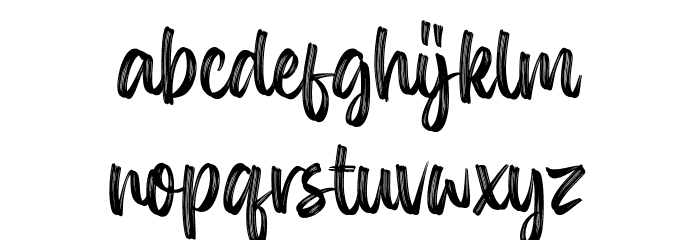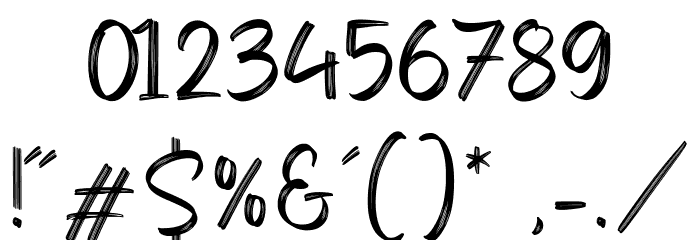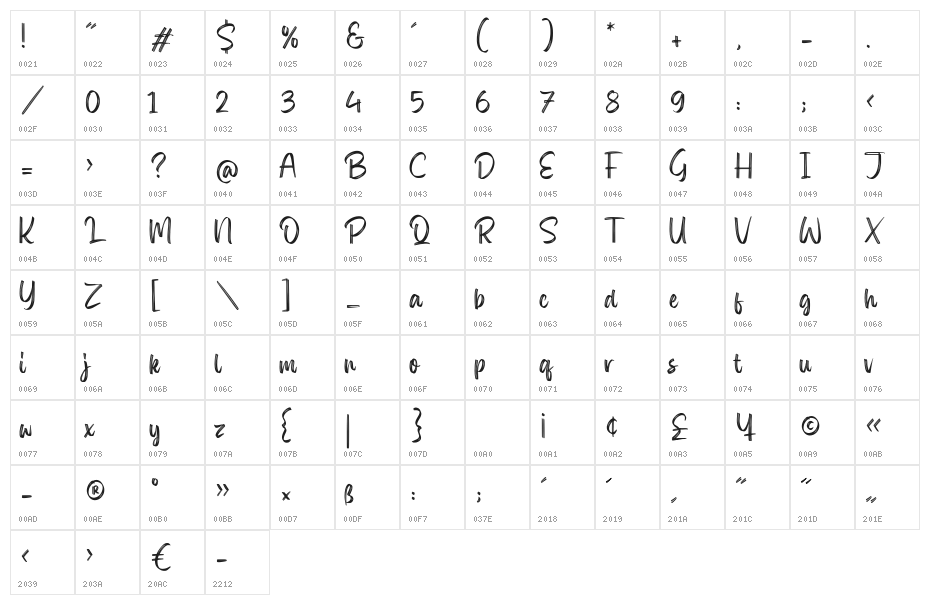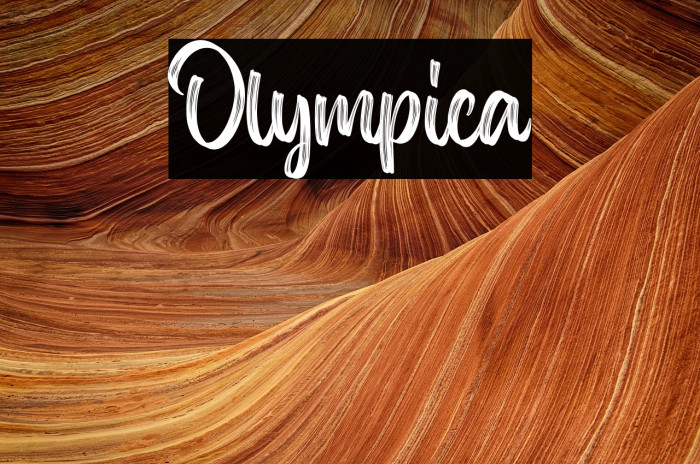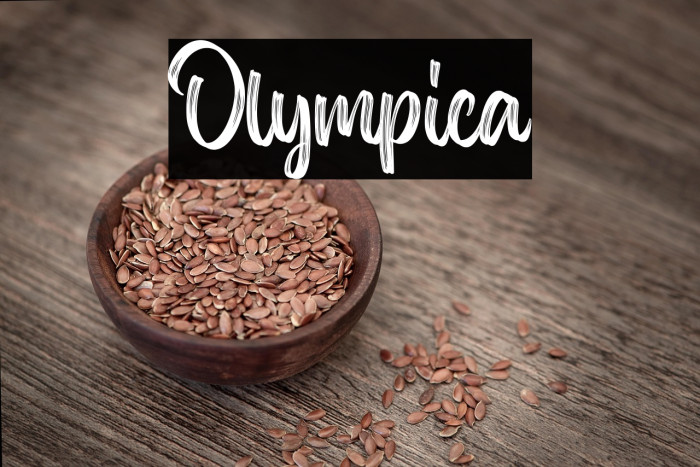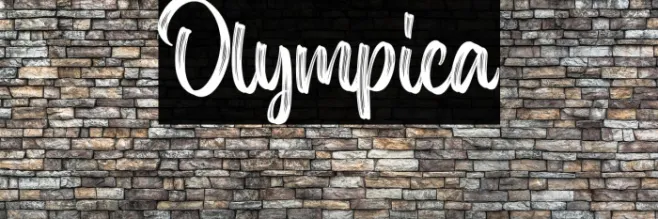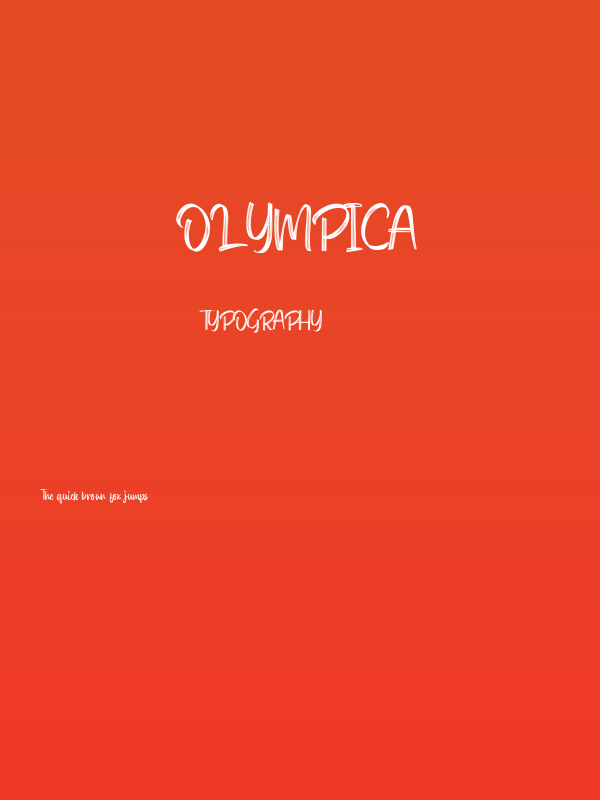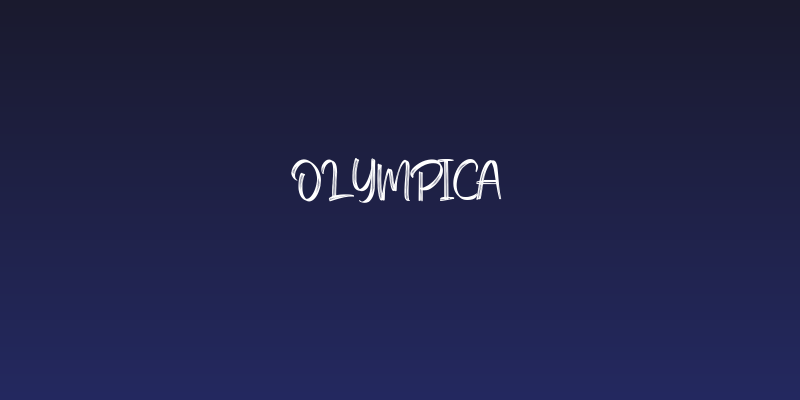
Olympica Font
This font features a playful and energetic handwritten style with bold, sweeping strokes that convey a sense of movement and dynamism. The uppercase letters are tall and slightly narrow, with a consistent stroke width that gives them a cohesive appearance. The lowercase letters maintain the same lively character, with some letters featuring loops and curves that add to the font's whimsical nature. Numbers are bold and clear, ensuring readability, while the special characters retain the same playful style, making them suitable for a variety of creative applications. The overall look is informal yet stylish, perfect for projects that require a personal touch.
A playful, energetic handwritten font with bold, sweeping strokes.
- Proposed Projects: Ideal for greeting cards, invitations, playful branding, and social media graphics.
- Use Case: Logos, Headlines, Informal Text